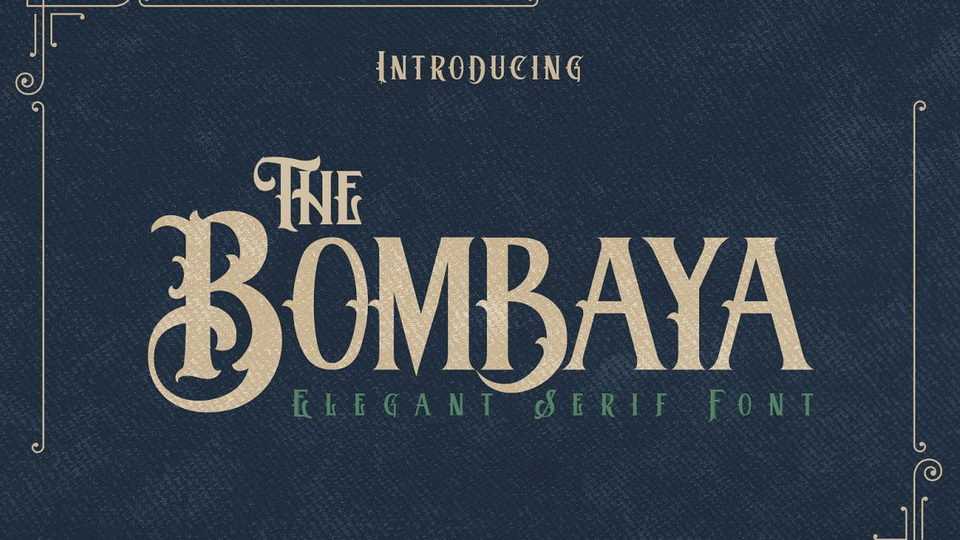
Download Bombaya font, a beautiful display typeface inspired by lettering from the good old past, but it still has a strong classic and Medival appearance.